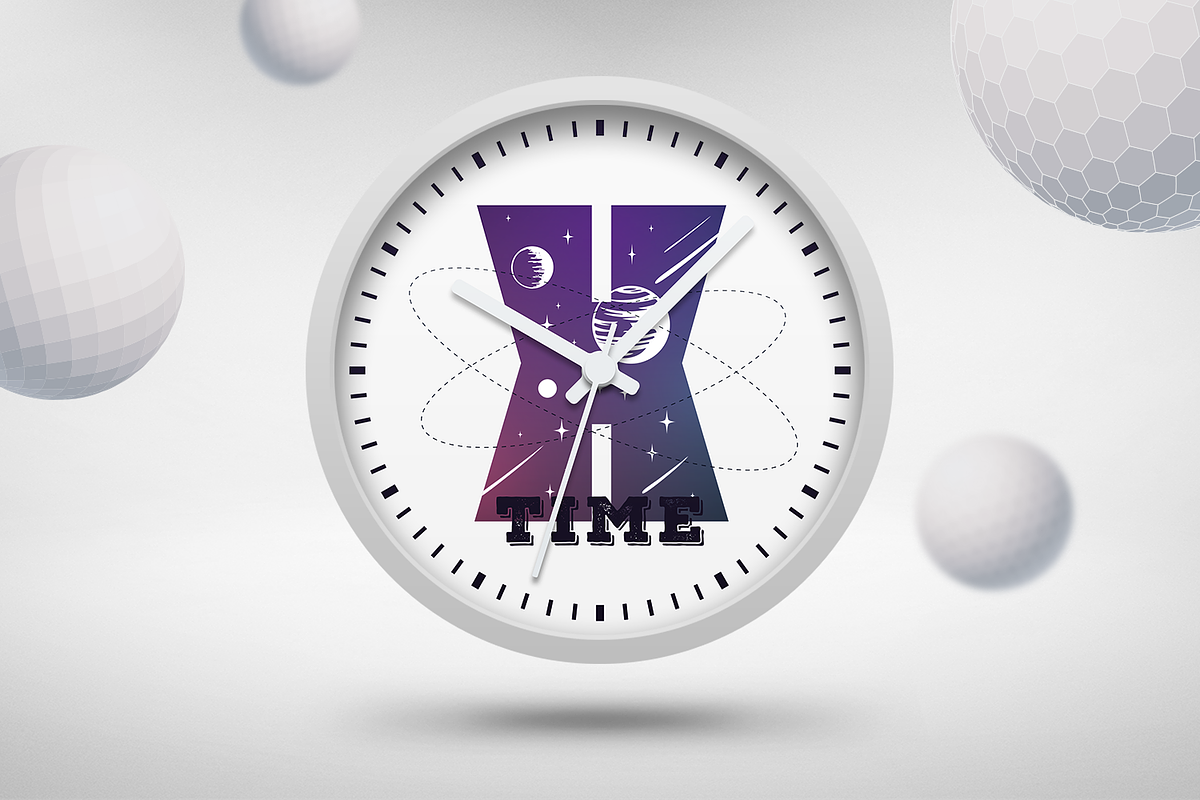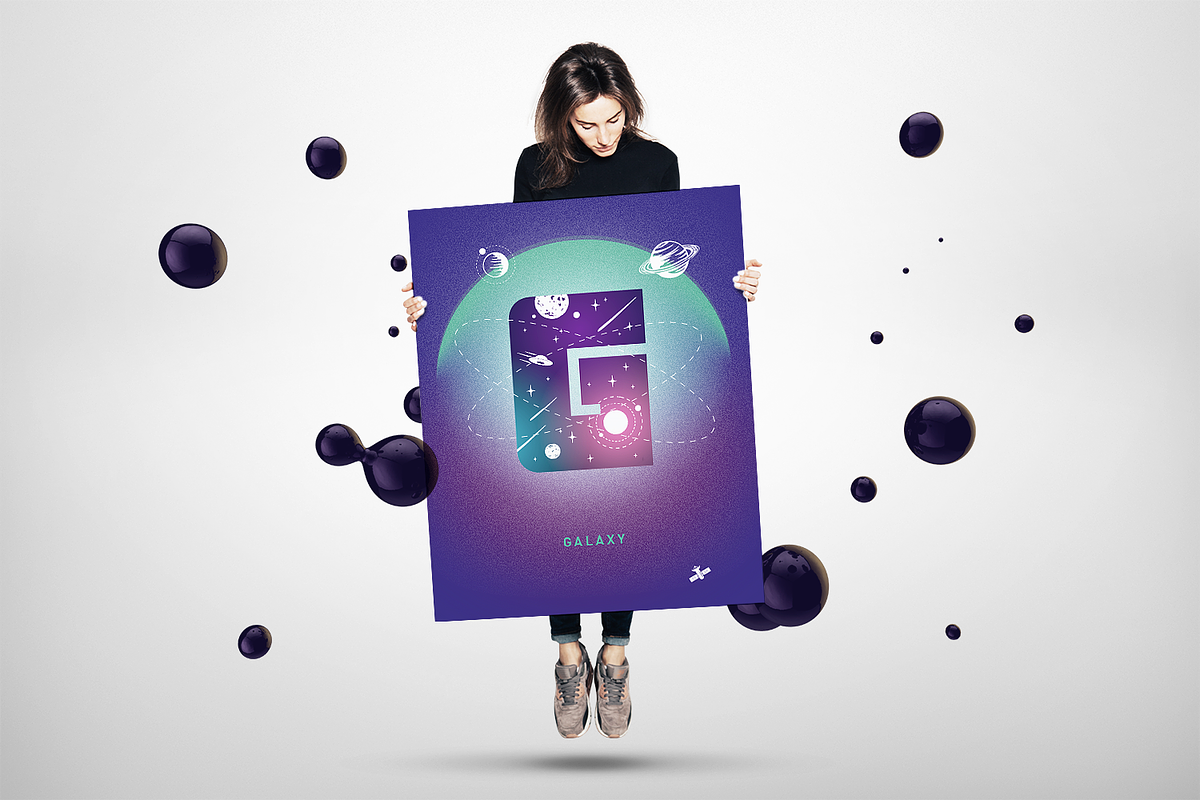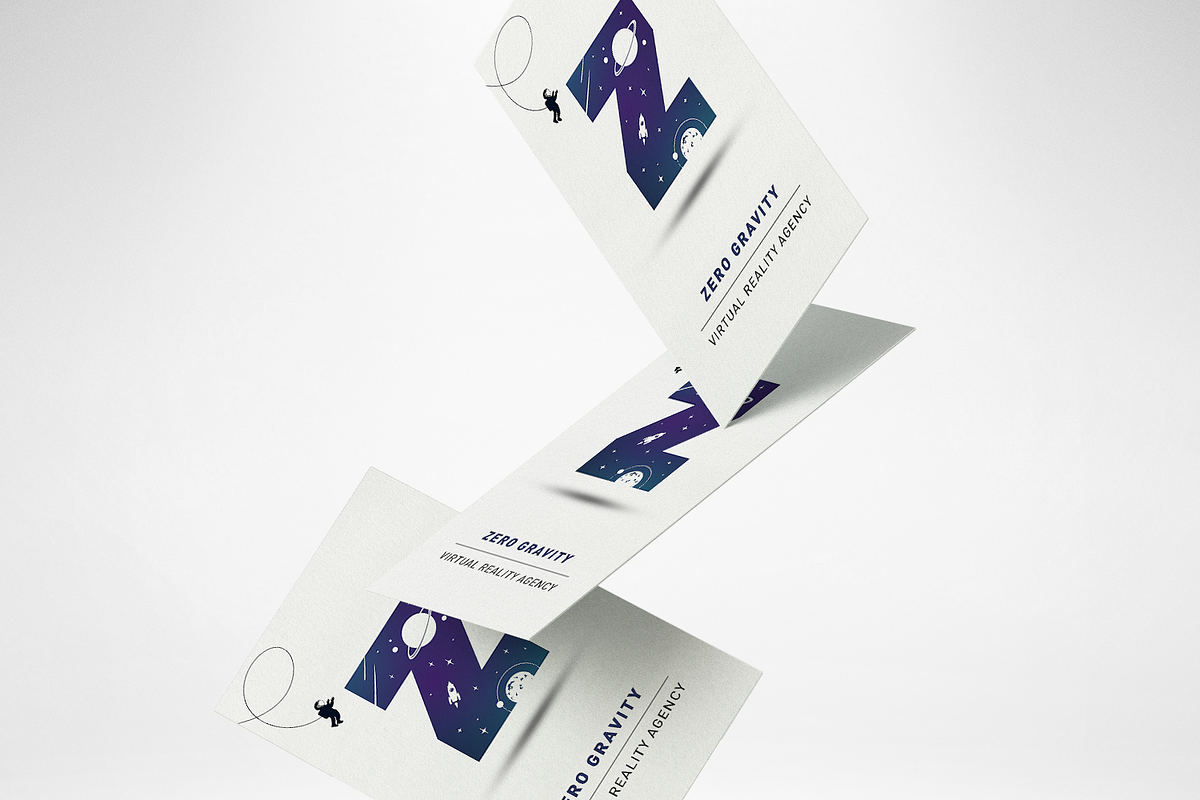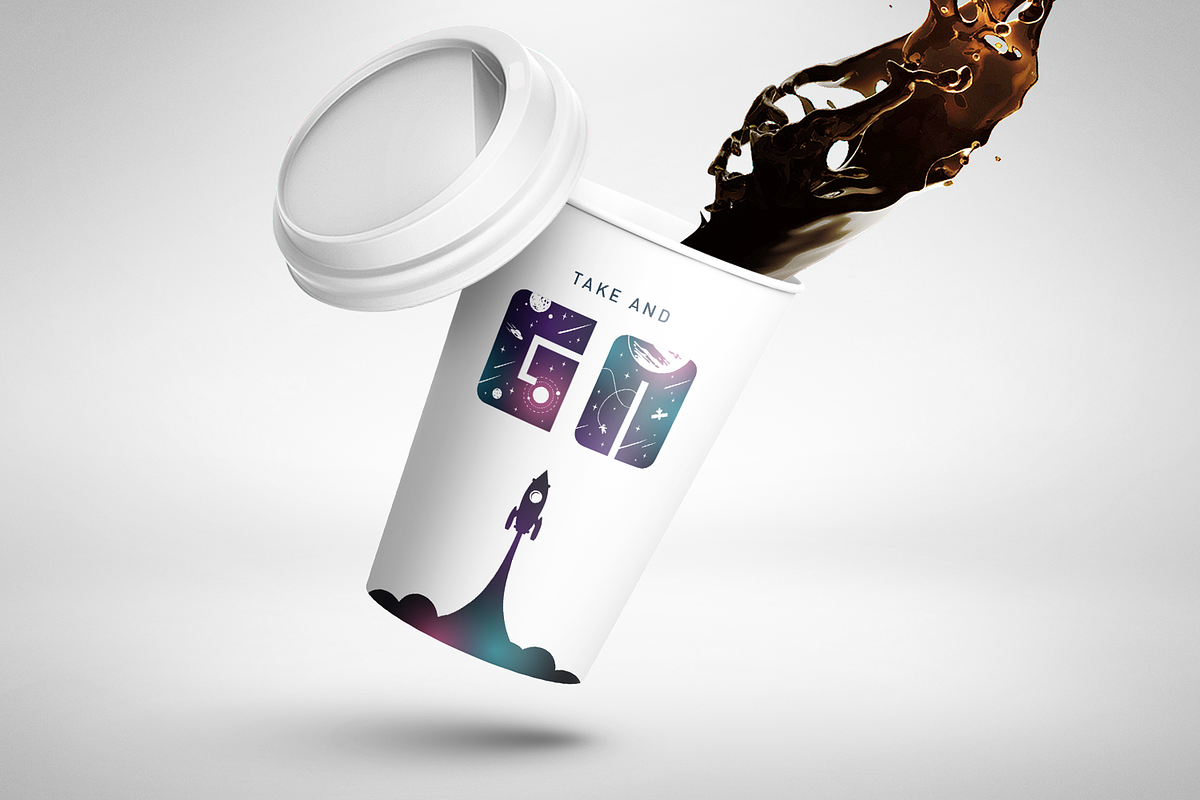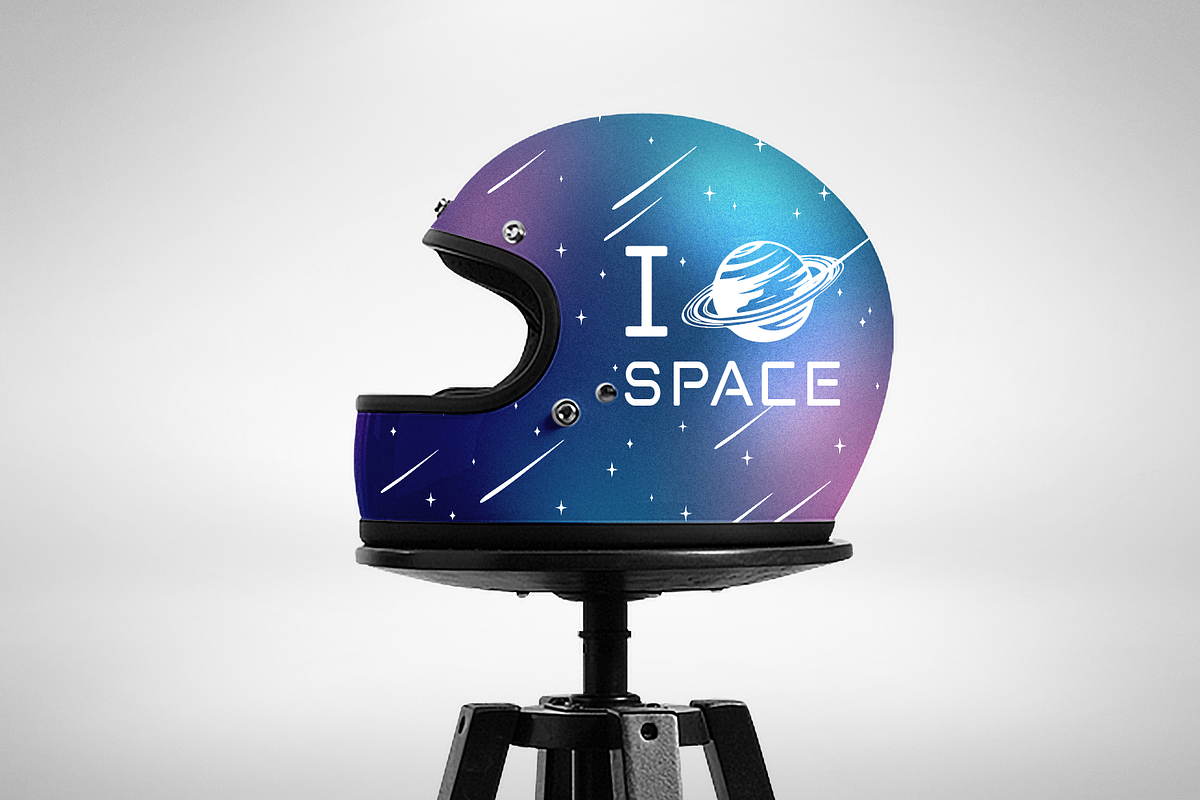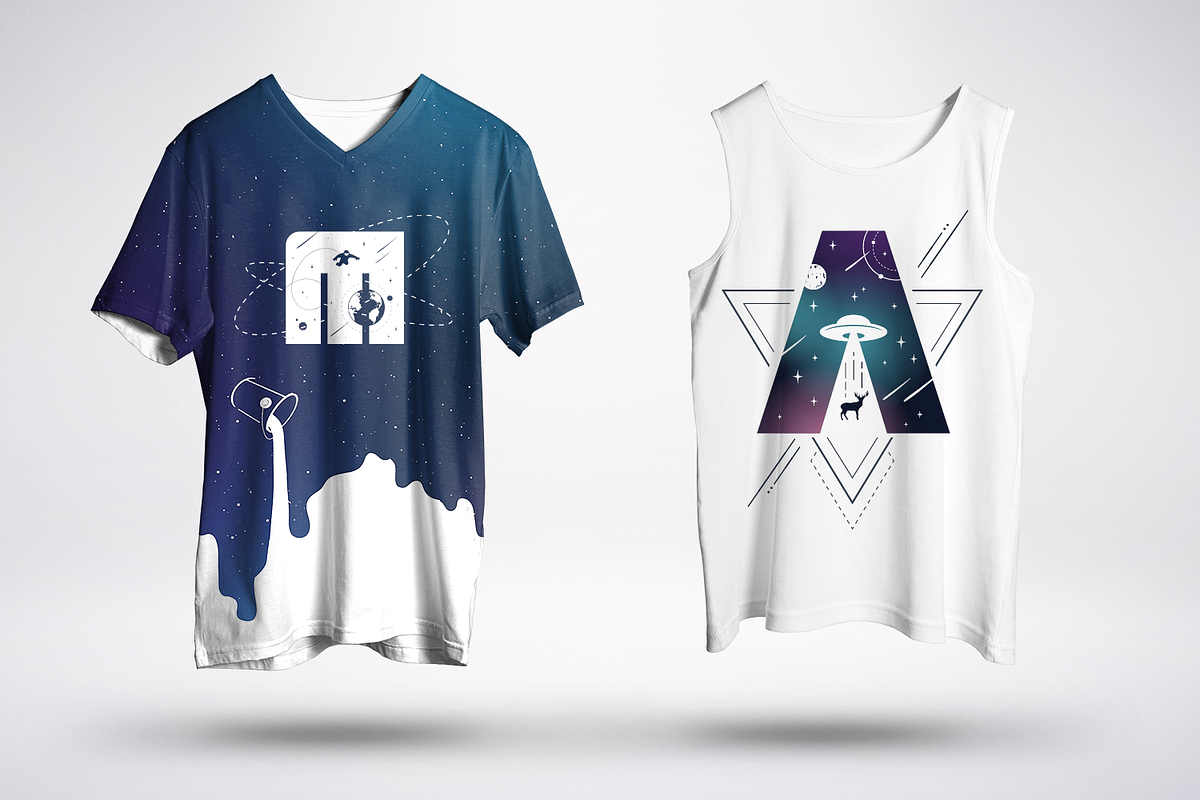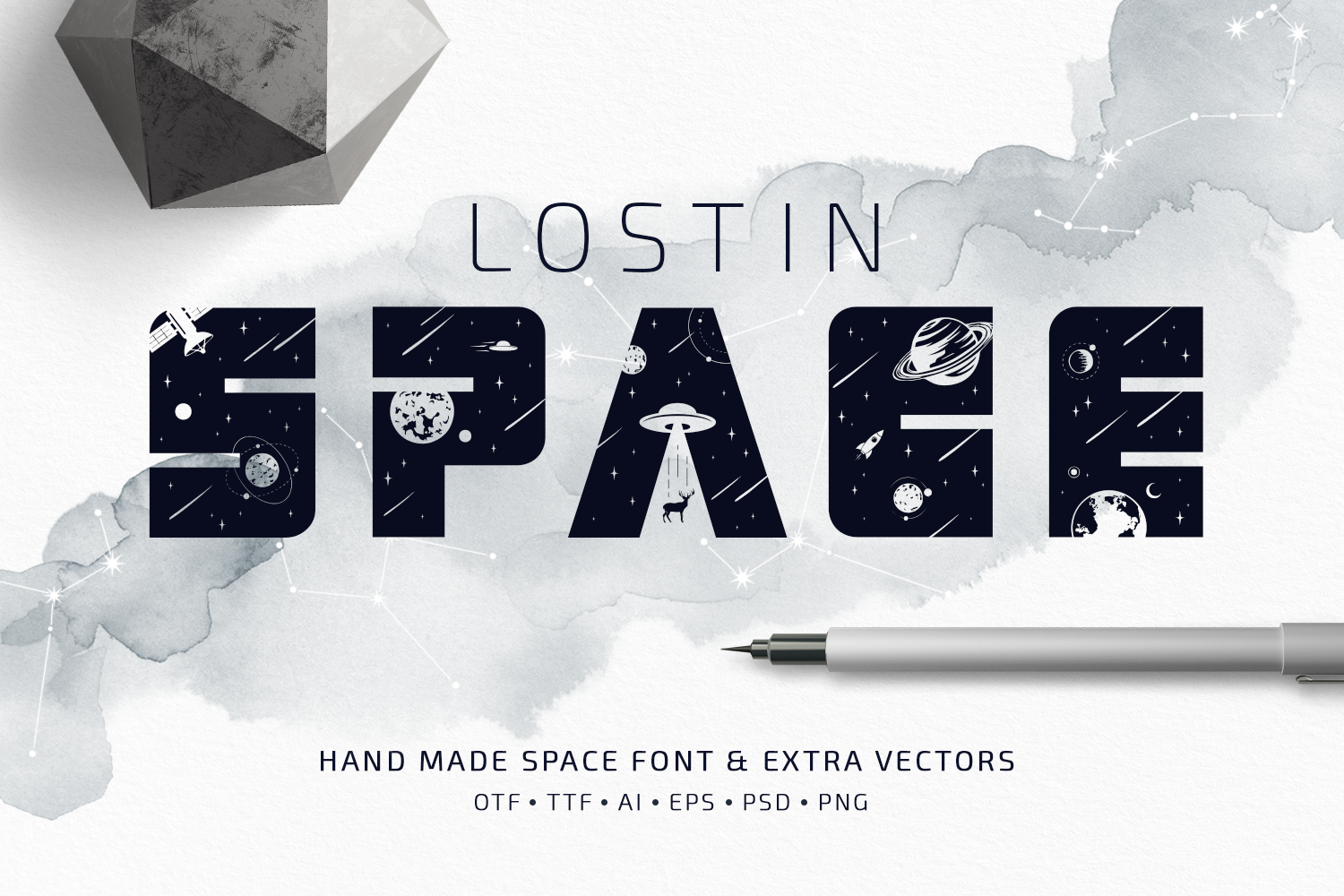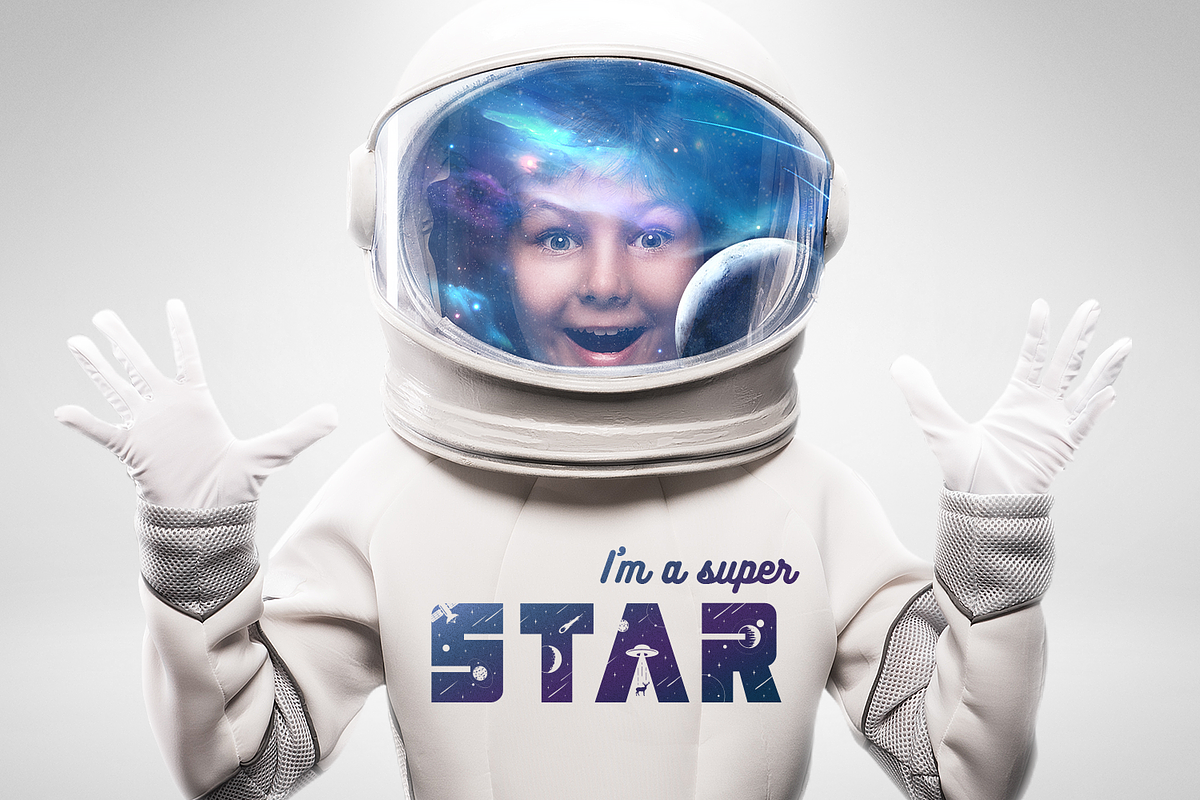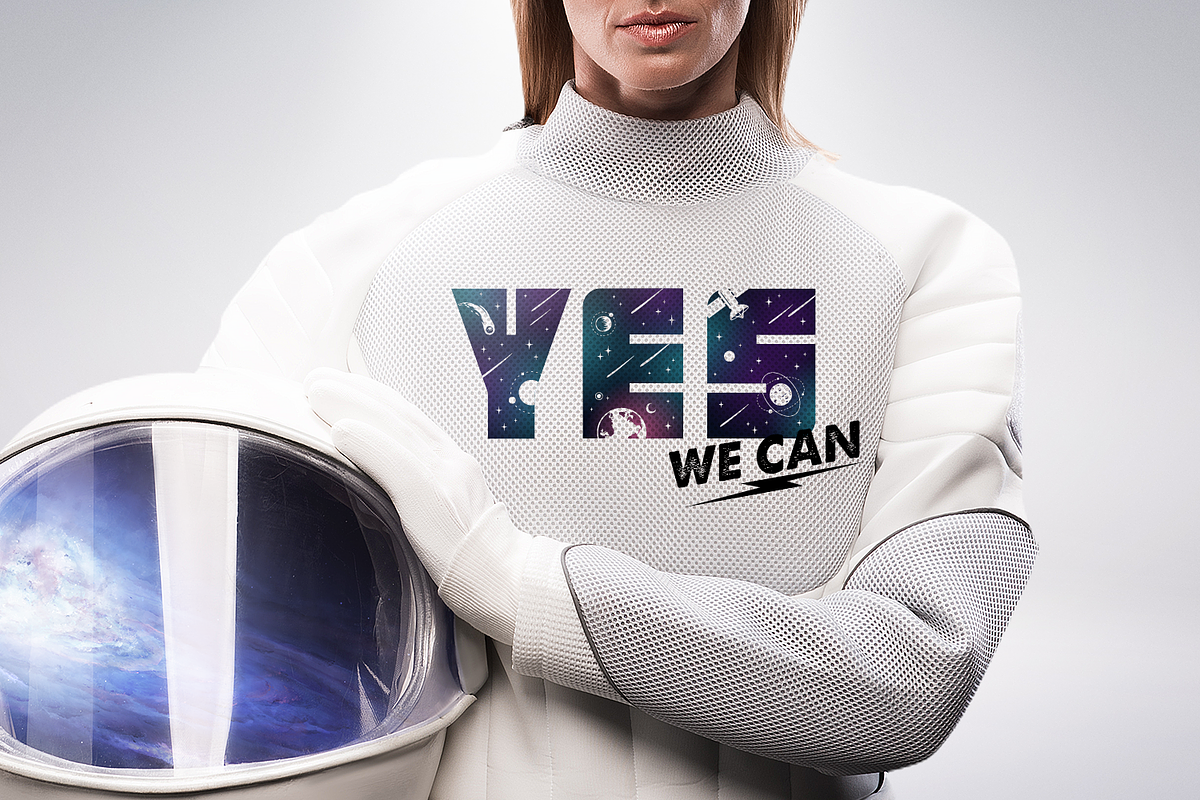
Lost In Space. Colored Font (SVG)
What's up, guys? I am really existed to introduce my new Space Color Font! It’s a modern font with trendy double exposure effect. Each letter is unique and has its own cosmic story. For example «A» – UFO abducting the deer, «B» - birth of a new Universe, «H» - huge asteroid is flying to Earth, somebody call Bruce Willis 🚀. In other words, every detail was made by hand and with fun. And I hope, no, I am sure that this font will look awesome in yours design project. May the force be with you!